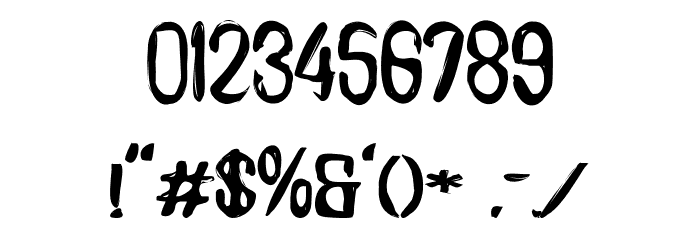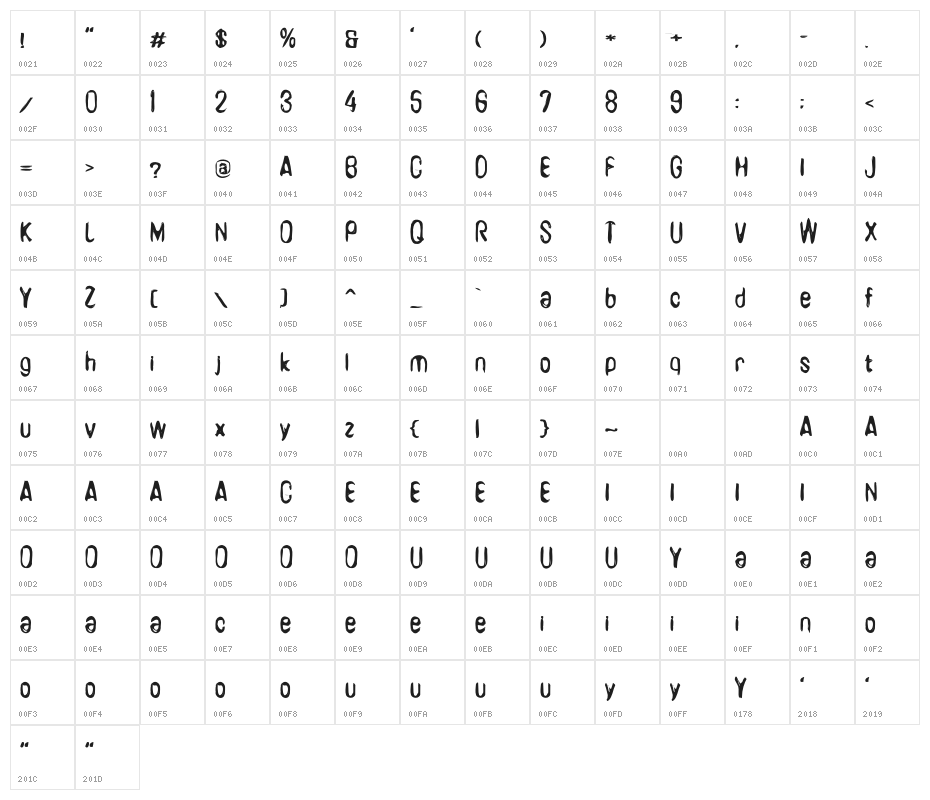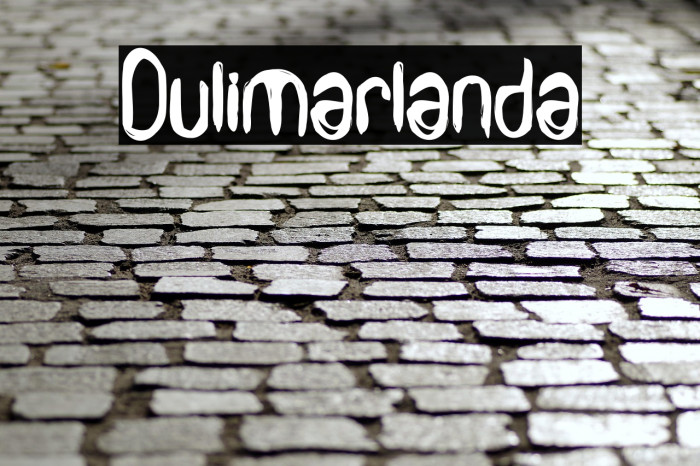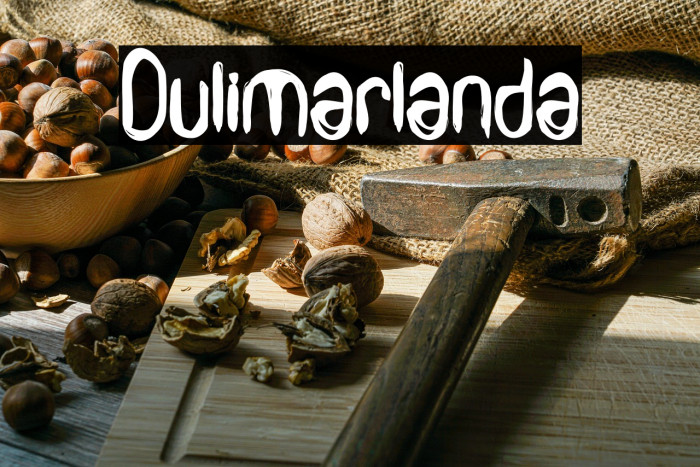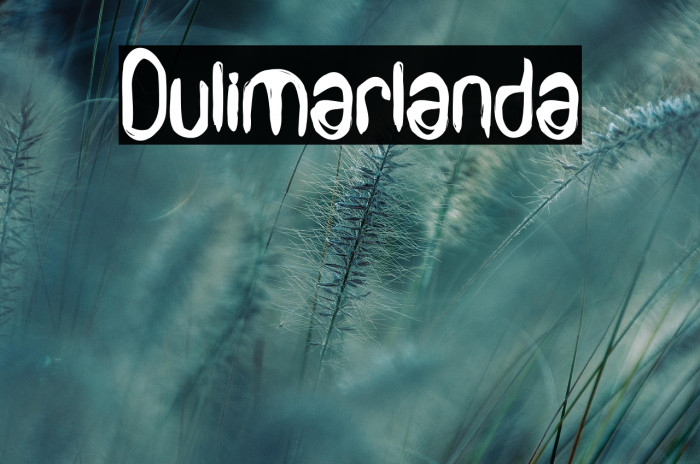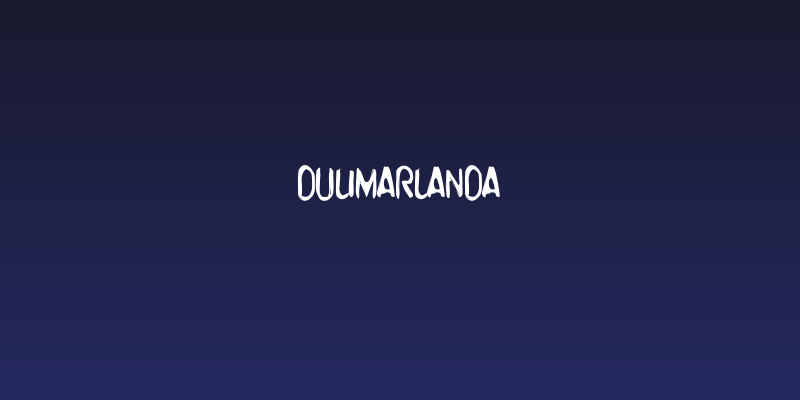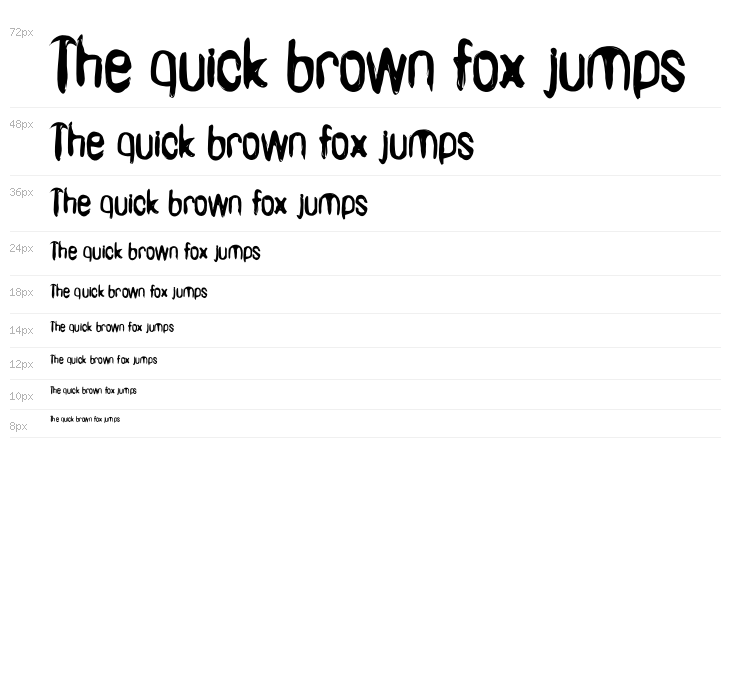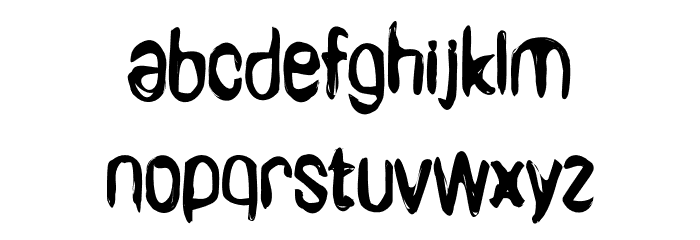
Dulimarlanda Font
Dulimarlanda Description
This font features a bold, artistic style with a brush-like texture that gives it a dynamic and expressive appearance. The letters have a playful and slightly irregular form, adding a sense of movement and creativity. The uppercase and lowercase characters maintain a consistent style, with rounded edges and varying stroke thicknesses that create a lively and engaging look. The numbers and special characters follow the same design principles, ensuring a cohesive visual identity. This font is ideal for projects that require a touch of artistic flair and individuality.
| Overall Style | Artistic |
| Proposed Projects | Ideal for artistic projects, posters, branding, and creative designs that require a unique and expressive touch. |